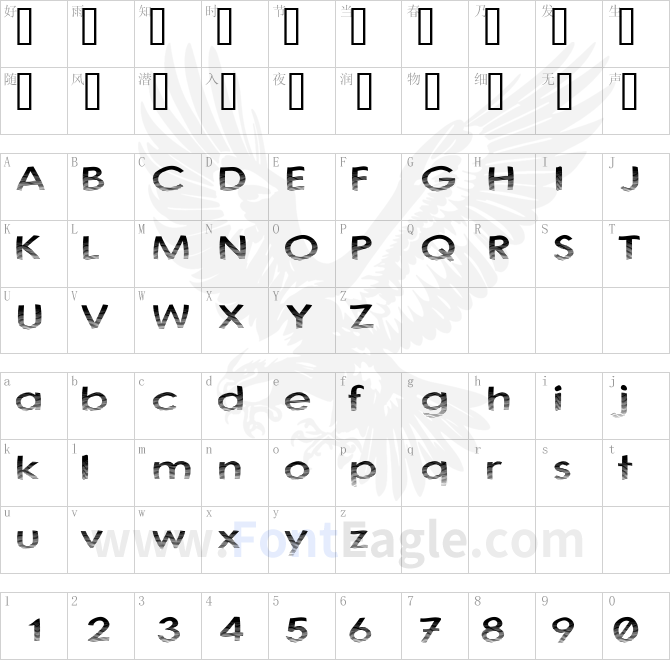
- Font name:Australian Sunset
- Font Subfamily ID:Australian Sunset
- Font Full Name:Australian Sunset
- Font Copyright:©GemFonts98 (created from font called ‘Bog Standard’, aslo by Gemfonts but not yet available to general public)